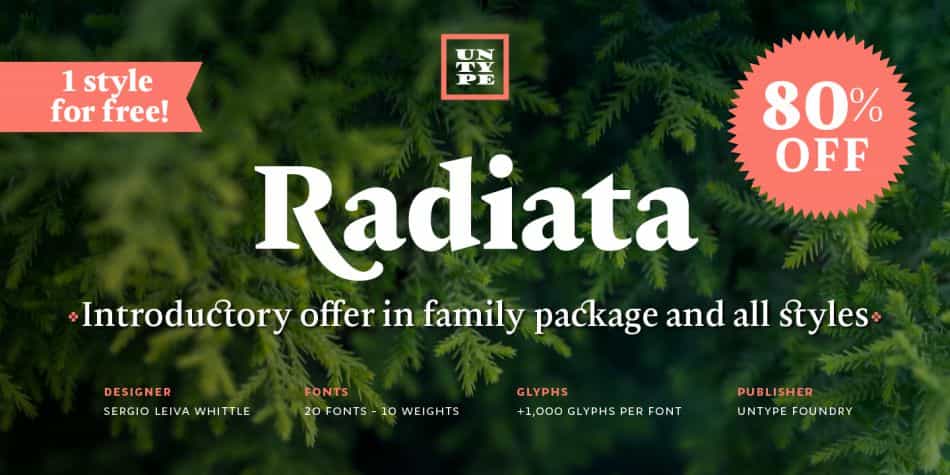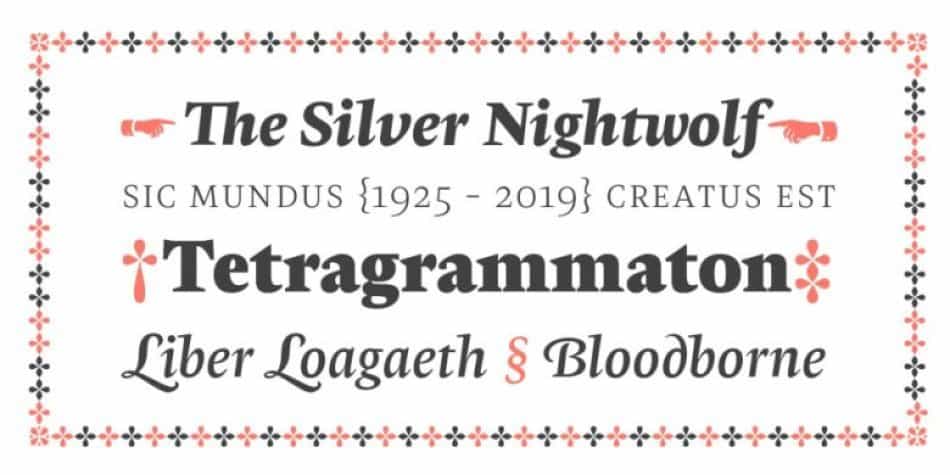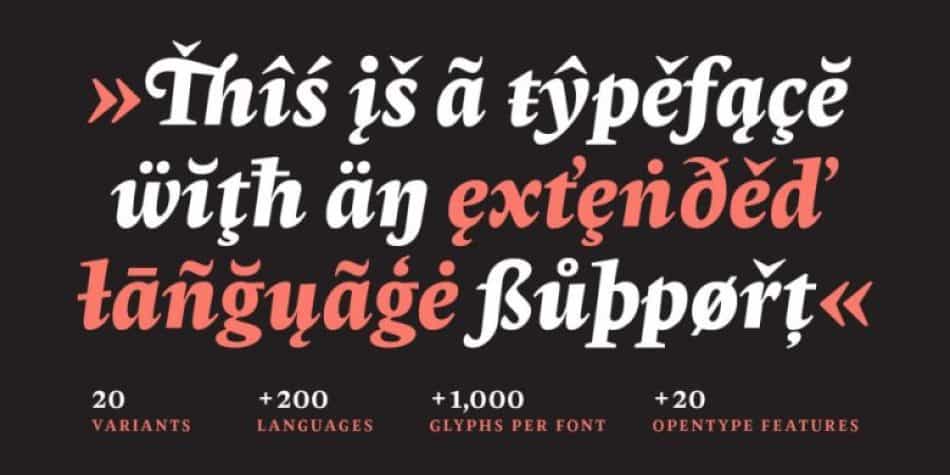
Radiata Font is a modern style serif font that has a certain curves and distinctive style. This font contains all the set of capital and lowercase letters, numerals, and punctuation marks. The lower case ‘r’ in the name ‘Radiata’ appears robust in structure but fragile on terminals and serifs and lends a rationality to the composition that is distinctly contemporary at the time theta flourishes organically and full of details on display settings.